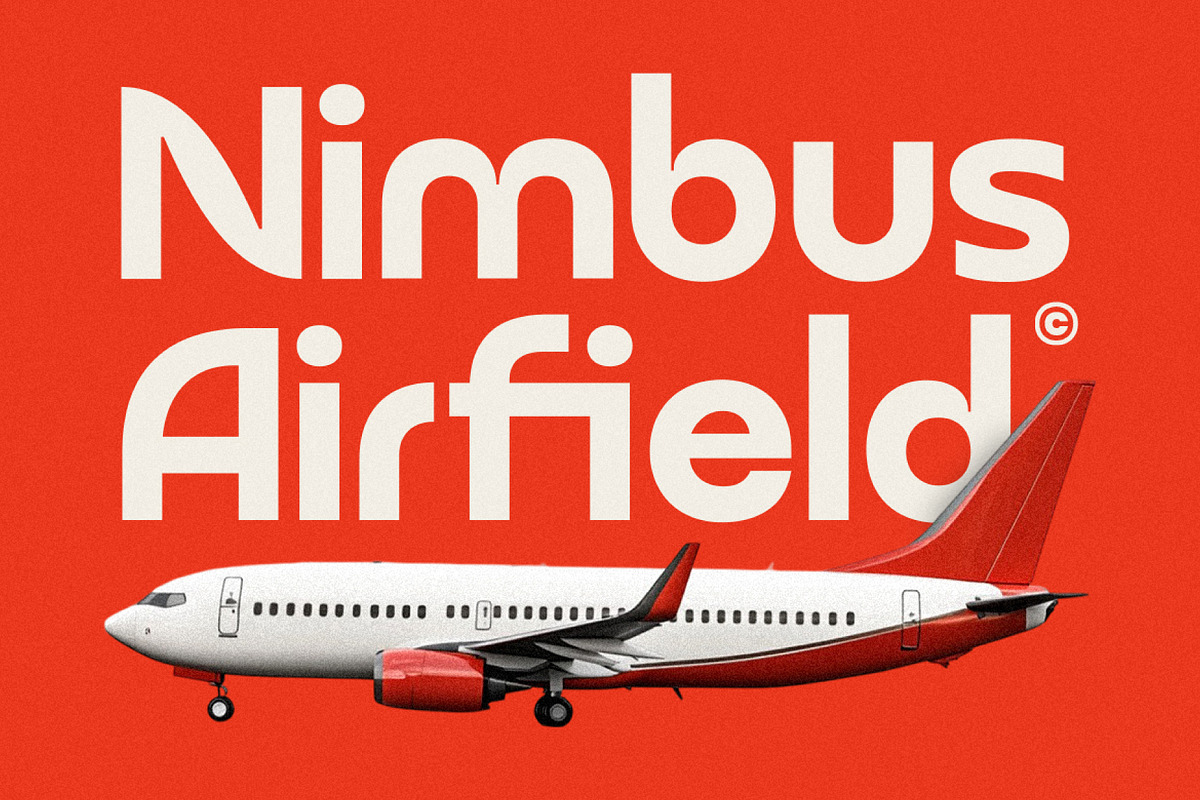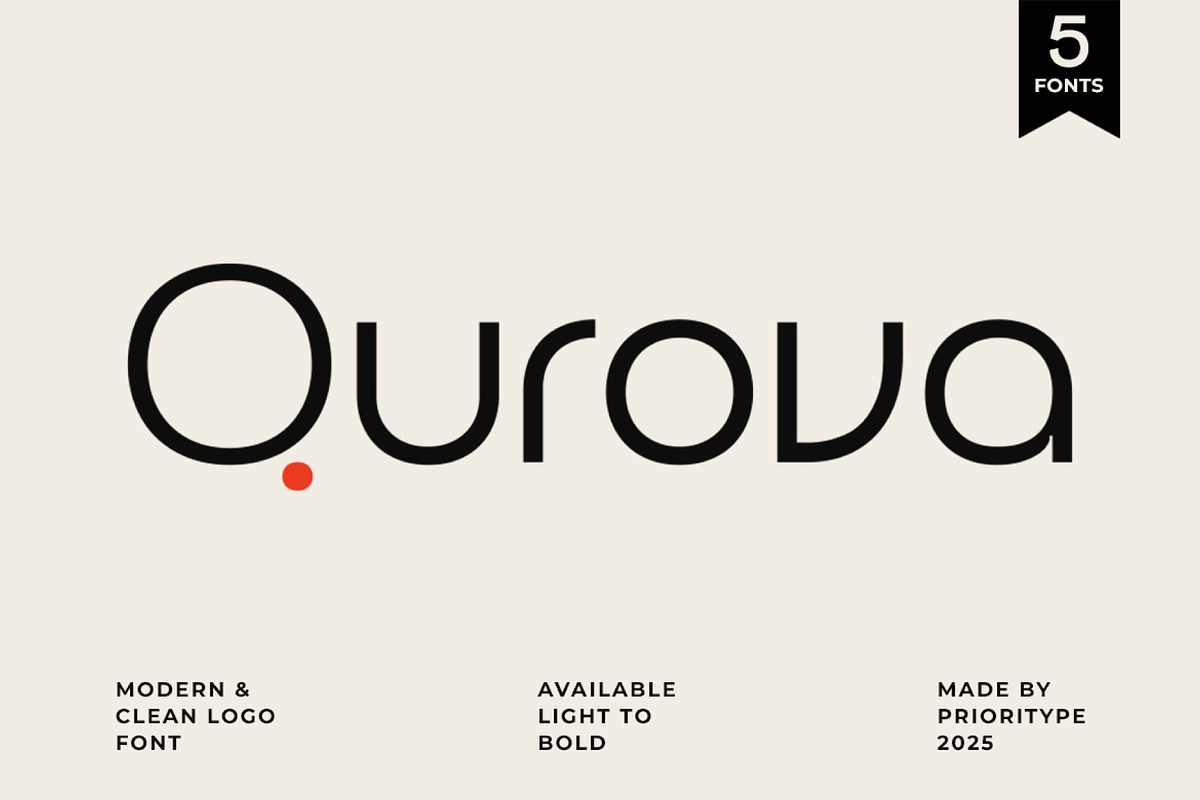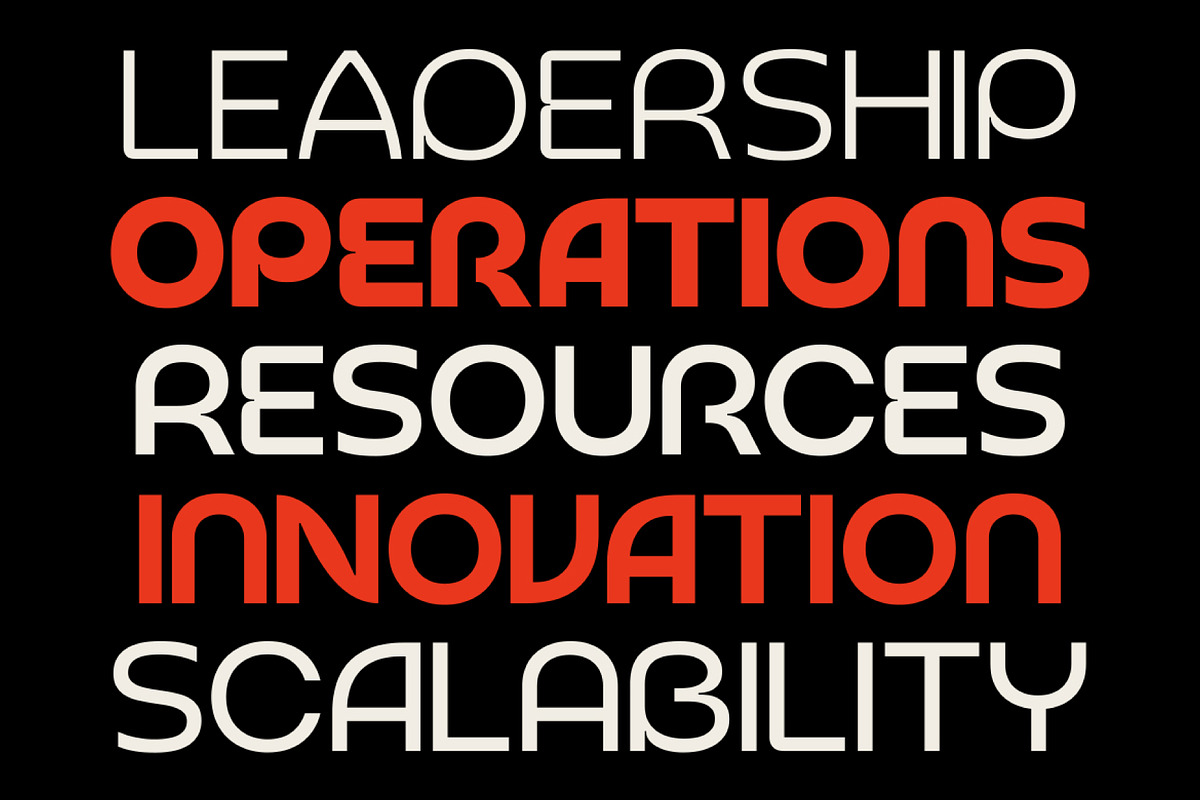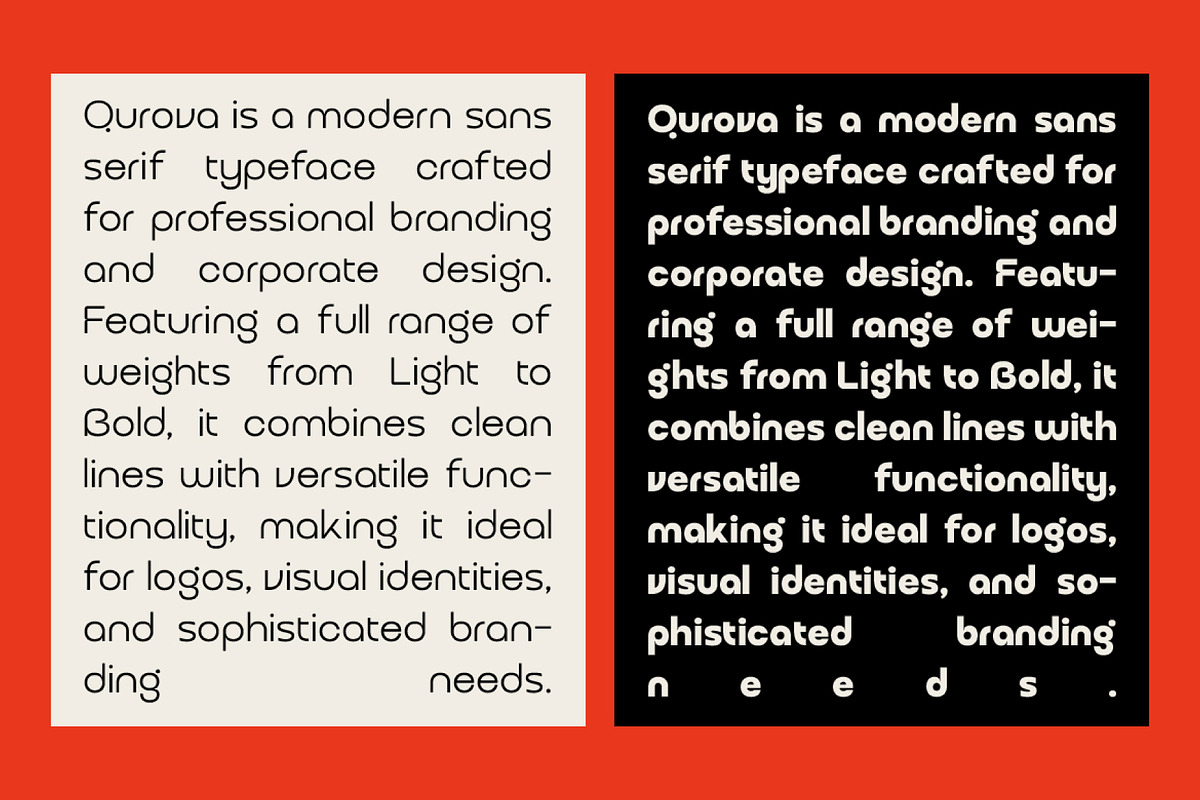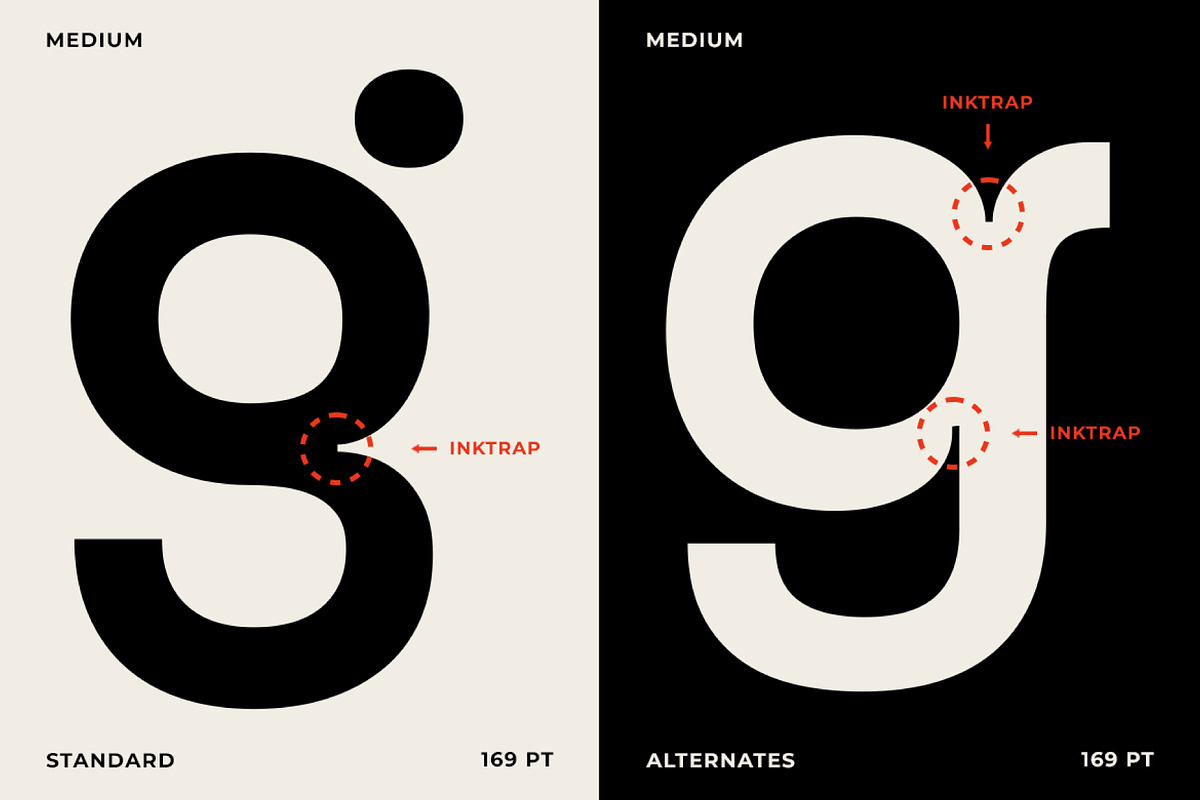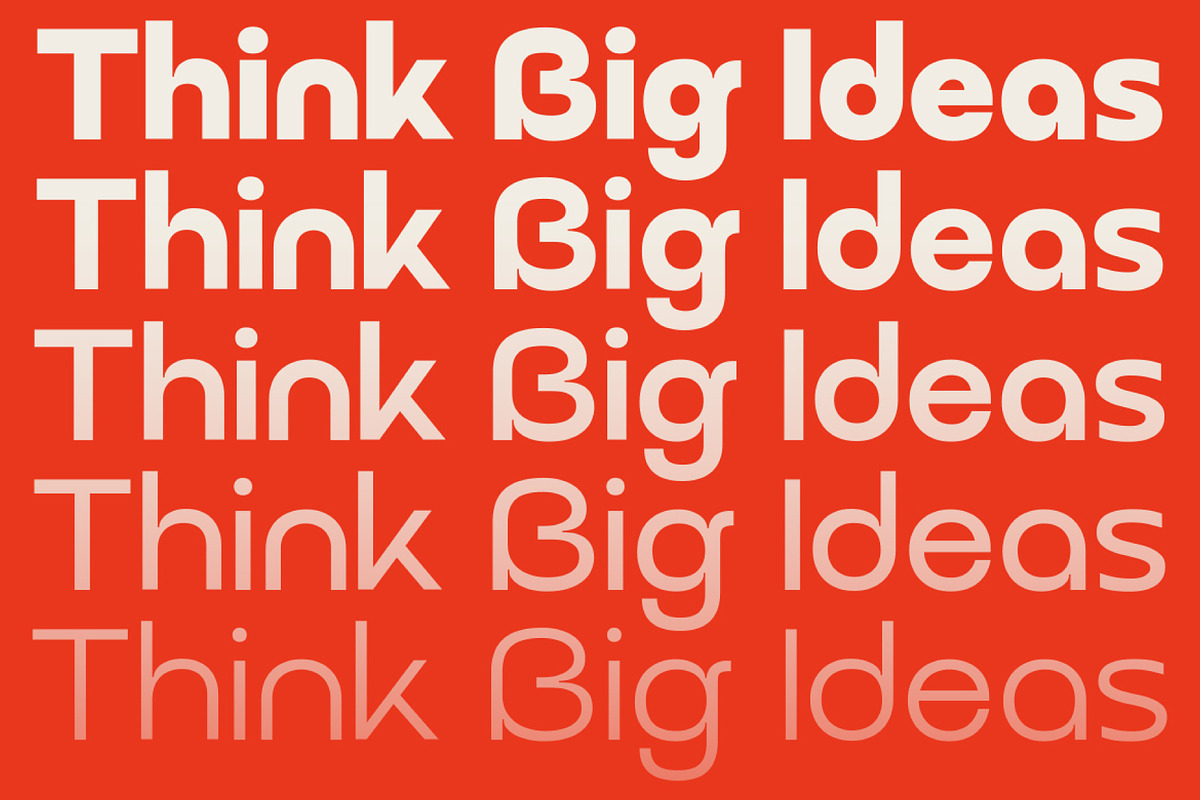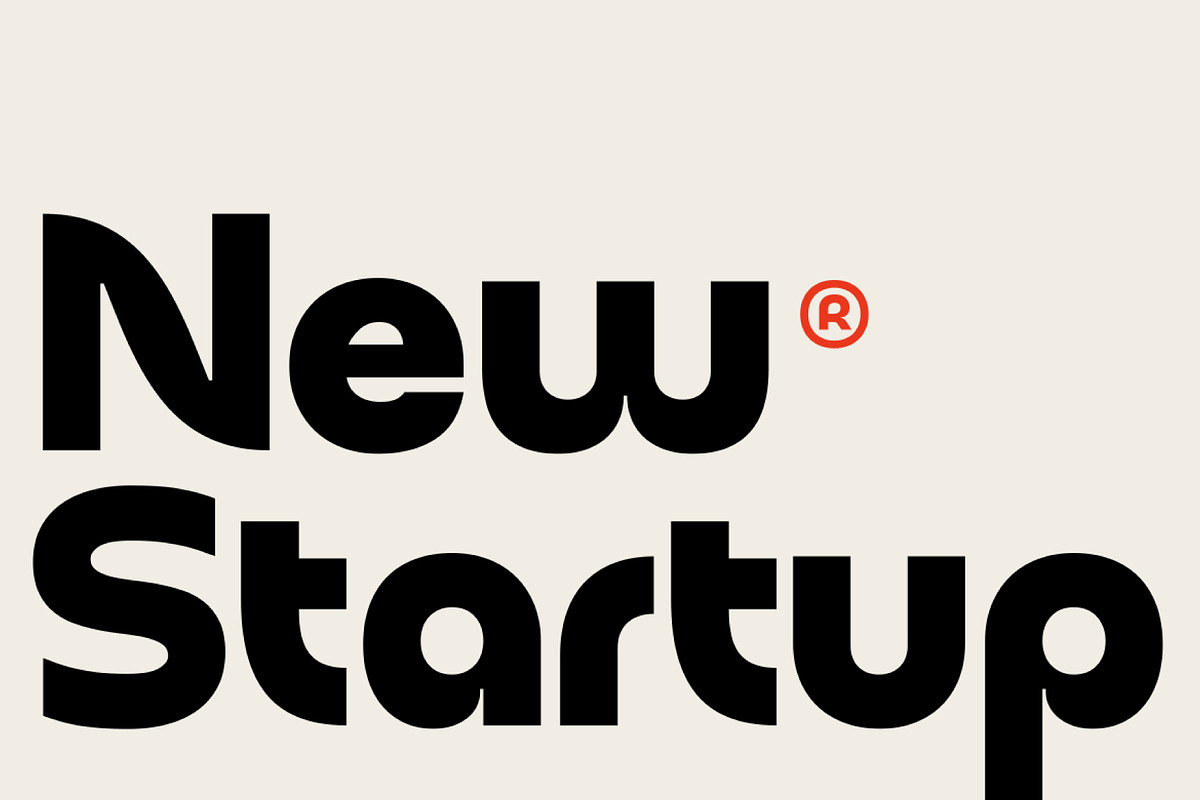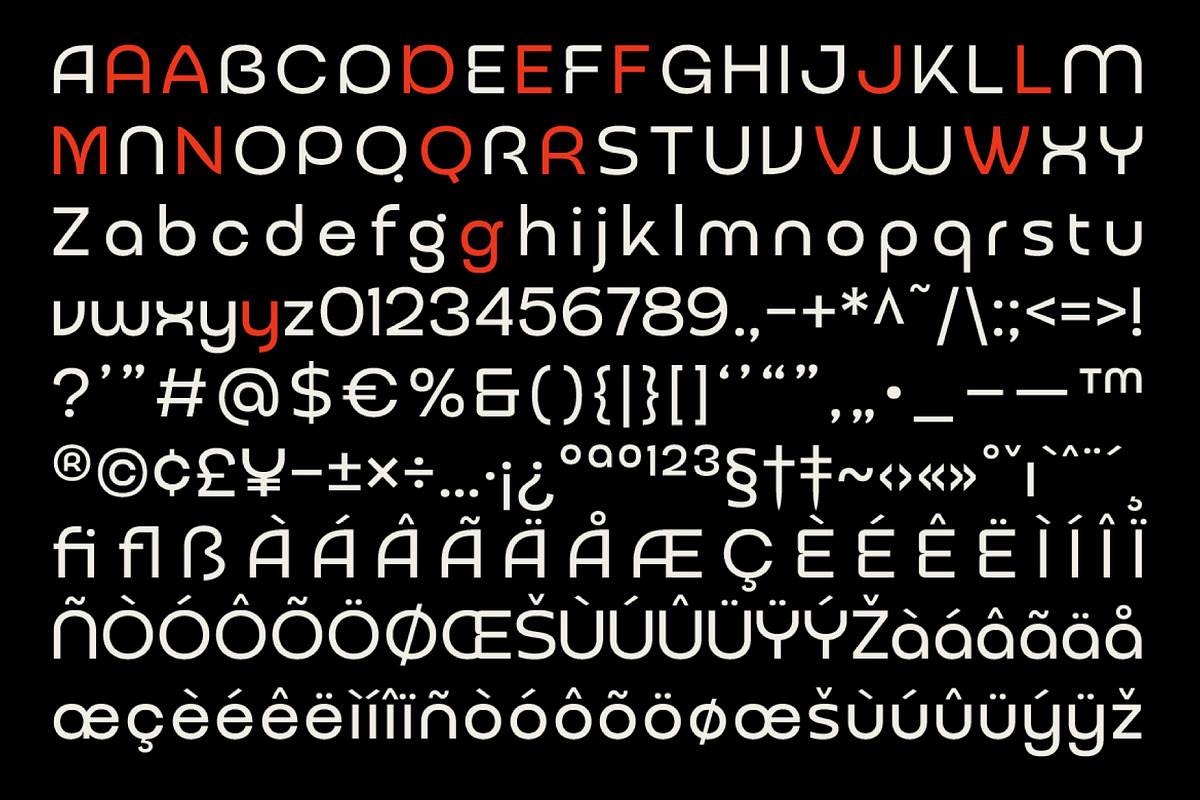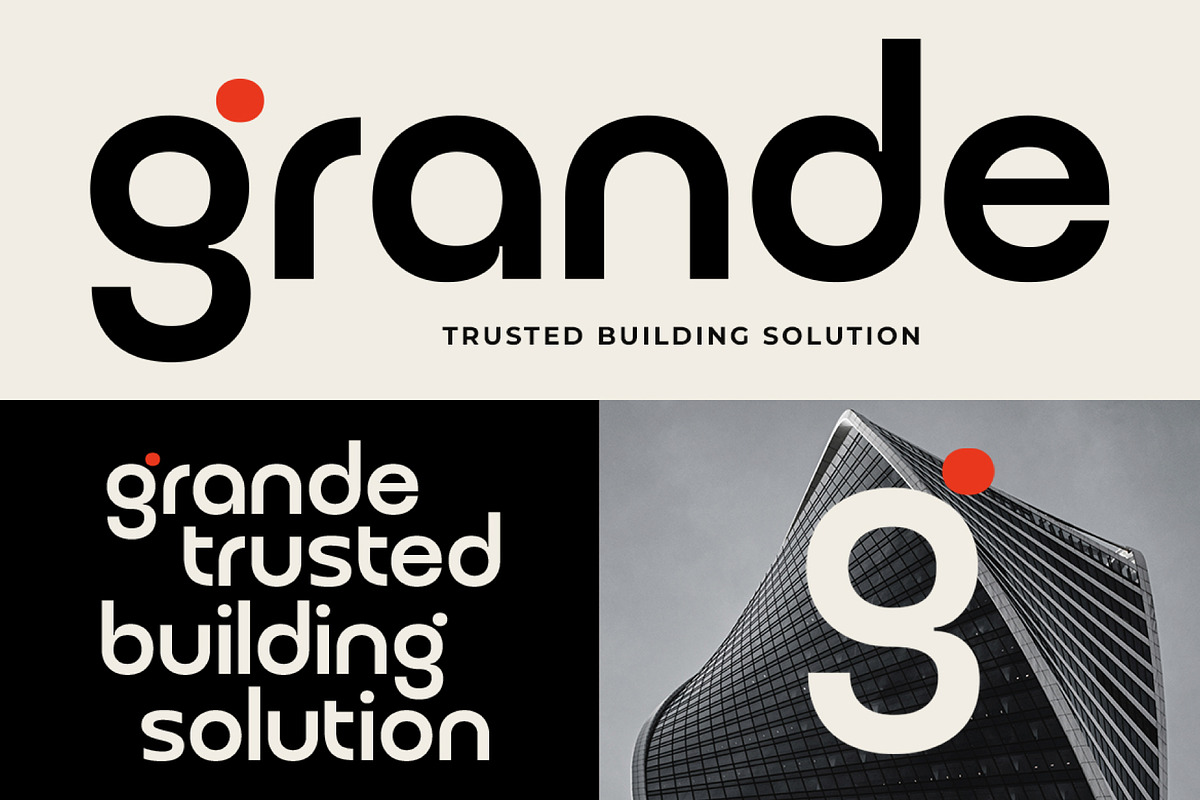
Qurova - Logo Font
Qurova is a modern sans-serif typeface crafted for professional branding and corporate design. Featuring a full range of weights from Thin to Bold, it combines clean lines with versatile functionality, making it ideal for logos, visual identities, and sophisticated branding needs.
- Features: Uppercase, Lowercase, Numeral, Punctuation, Multilingual & Alternates.
- Multilingual contained: Afrikaans, Albanian, Asu, Basque, Bemba, Bena, Breton, Catalan, Chiga, Cornish, Danish, Dutch, English, Estonian, Filipino, Finnish, French, Friulian, Galician, German, Gusii, Indonesian, Irish, Italian, Kabuverdianu, Kalenjin, Kinyarwanda, Luo, Luxembourgish, Luyia, Machame, Makhuwa-Meetto, Makonde, Malagasy, Manx, Morisyen, North Ndebele, Norwegian Bokmål, Norwegian Nynorsk, Nyankole, Oromo, Portuguese, Quechua, Romansh, Rombo, Rundi, Rwa, Samburu, Sango, Sangu, Scottish Gaelic, Sena, Shambala, Shona, Soga, Somali, Spanish, Swahili, Swedish, Swiss German, Taita, Teso, Uzbek (Latin), Volapük, Vunjo, Zulu.